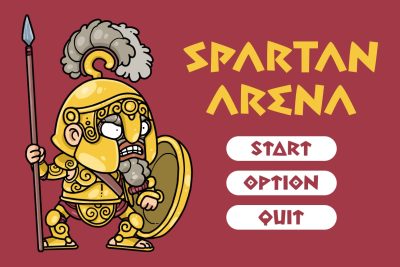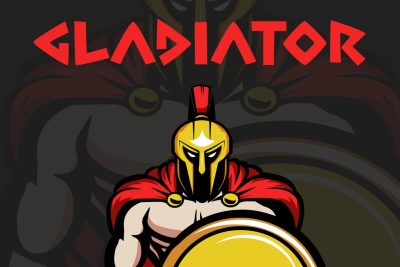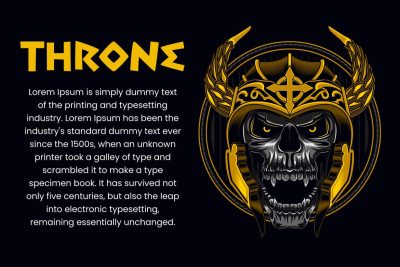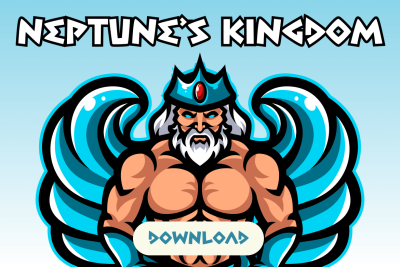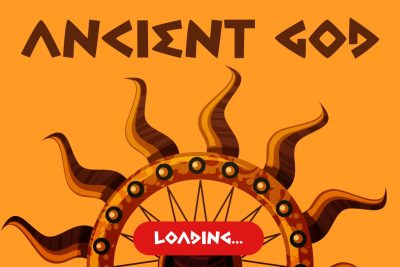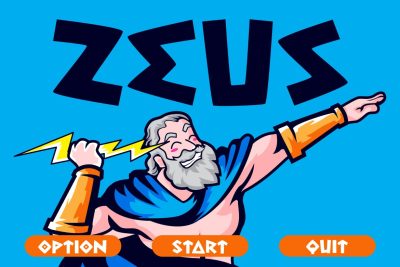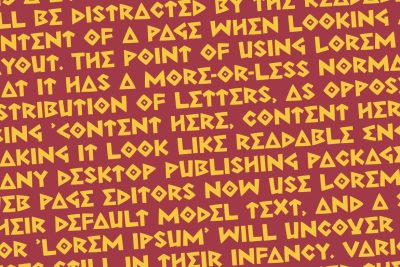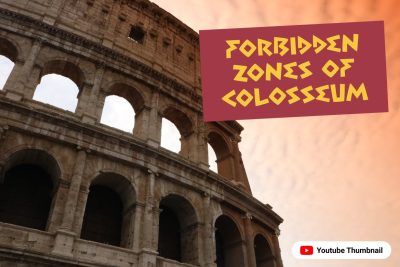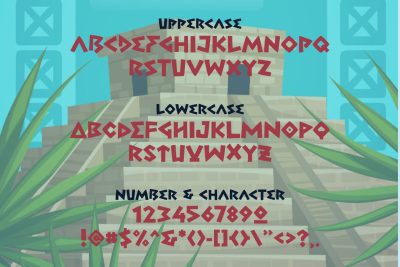
Gaming Font Greconian blends the grandeur of ancient Greek mythology with bold, modern design. Its sharp geometric shapes and striking edges bring a commanding, heroic aesthetic to any creative project. This makes it a perfect choice for gaming titles, fantasy themes, and myth-inspired storytelling. Whether youโre crafting game logos, designing posters, or creating digital art, this font guarantees to leave a lasting impression.
Tailored specifically for the gaming community, this typeface combines timeless classical elements with a fresh, contemporary edge. Its bold letterforms grab attention instantly, while the clean structure ensures clarity and readability. With Gaming Font Greconian, you can elevate your designs and immerse audiences in epic adventures and legendary tales.
Why Gaming Font Greconian Stands Out
One of the most impressive features of this font is its versatility. It adapts effortlessly to a variety of platforms, making it perfect for both digital and print applications. For instance, designers can use it to create standout branding, compelling logos, and social media visuals that resonate with viewers. Itโs also an excellent choice for book covers, gaming interfaces, and marketing campaigns.
Furthermore, its angular, bold design sparks imagination and sets the tone for adventurous projects. The unique letterforms maintain a balance between style and functionality, ensuring that your message is both visually impactful and easy to understand. Its consistent spacing and clean lines contribute to a polished, professional look.
Perfect for Gaming, Fantasy, and Beyond
Gaming Font Greconian isnโt limited to gaming. It fits beautifully into fantasy, sci-fi, and mythology-inspired designs as well. Game developers can use it to add excitement and grandeur to titles or interfaces. Similarly, storytellers can incorporate it into book covers, cinematic posters, or other promotional materials.
Moreover, this font has a timeless quality that keeps it relevant for a wide range of creative applications. Designers looking for a typeface that conveys strength, courage, and history will find Gaming Font Greconian essential. Whether youโre building a game, launching a brand, or creating a visual masterpiece, this font ensures your work stands out with elegance and impact.